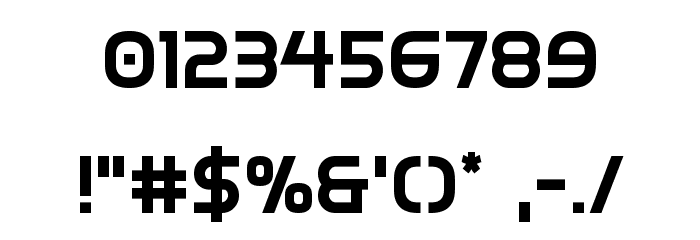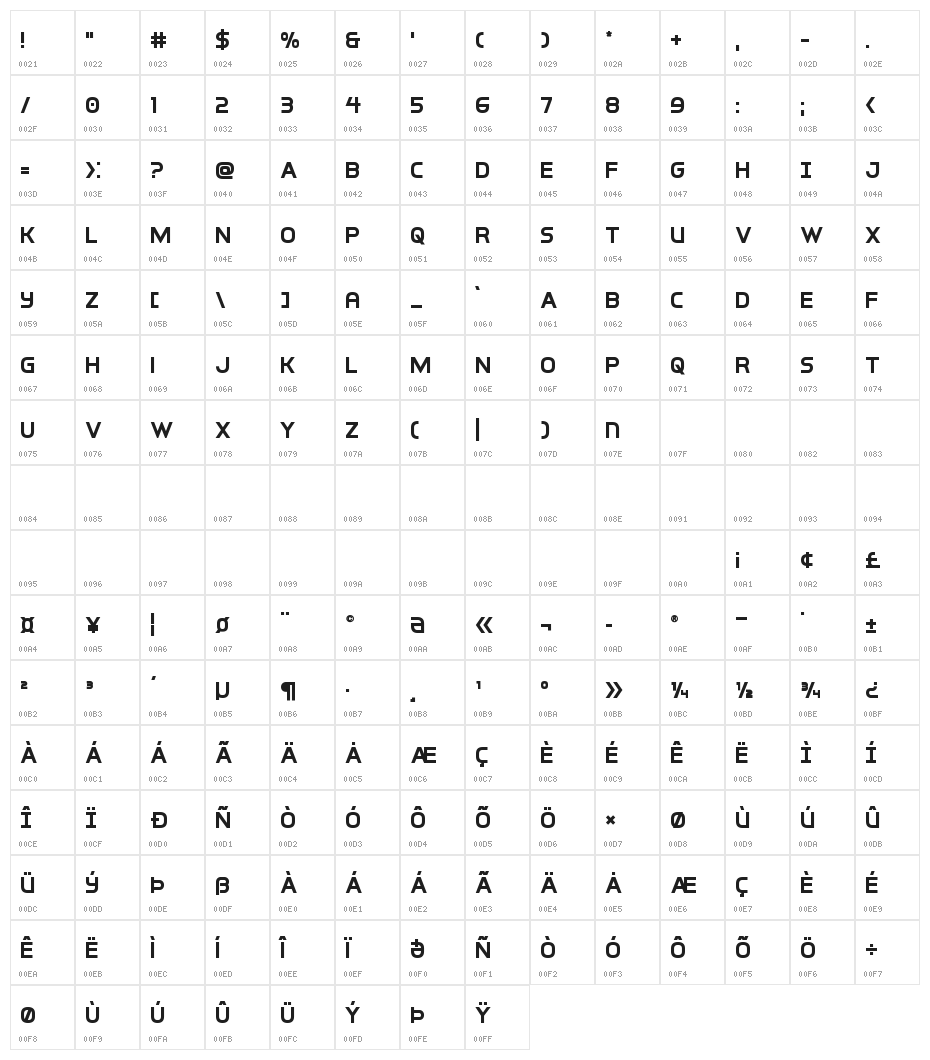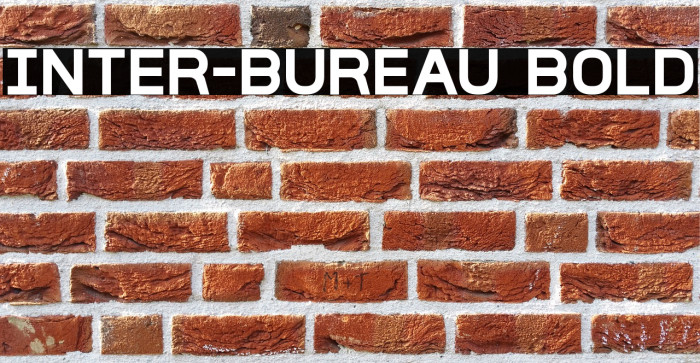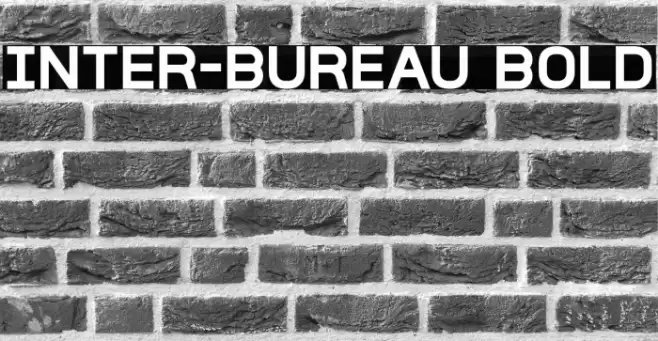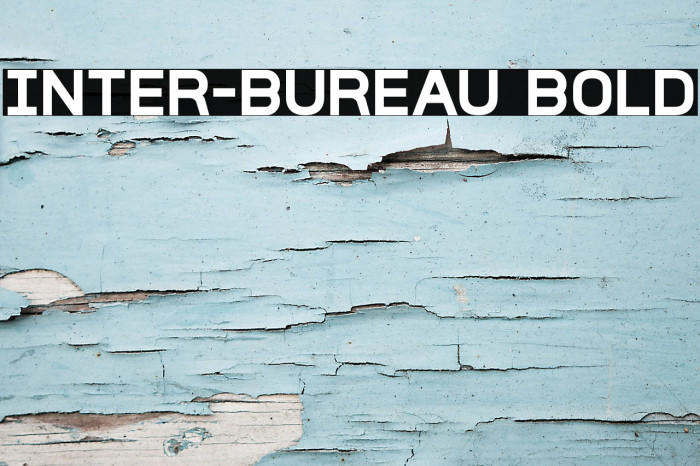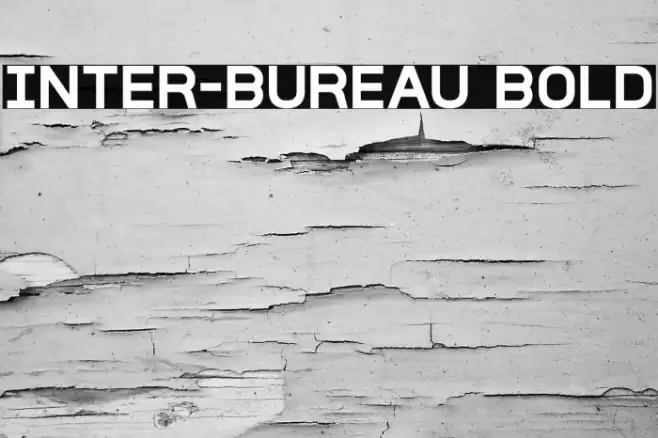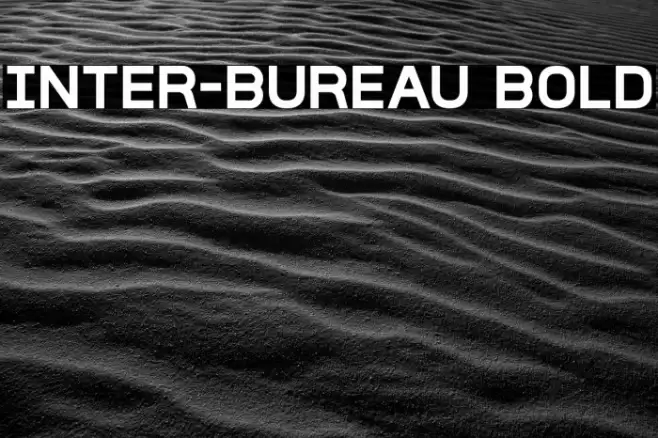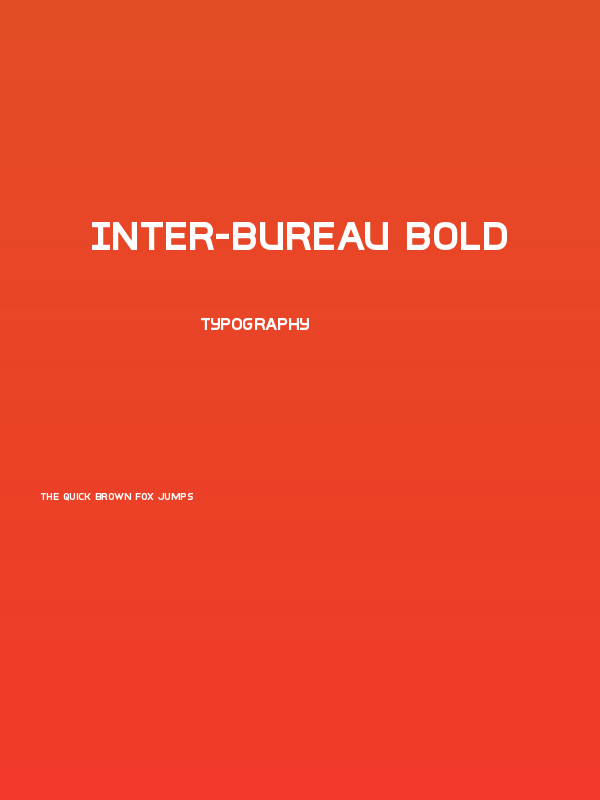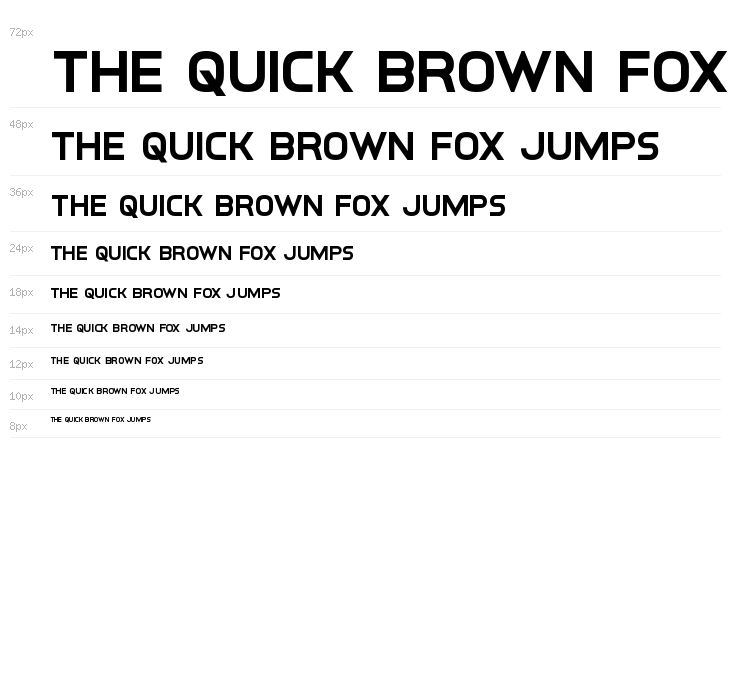
Inter-Bureau Bold Font
Inter-Bureau Bold Description
This typeface features a bold and modern design with clean, geometric lines. The characters are uniformly structured, exhibiting a strong presence with their thick strokes and minimalistic style. The uppercase letters are consistent in height, providing a sense of balance and stability. The lowercase letters maintain a similar geometric form, ensuring readability and cohesion across different text sizes. Numbers are clear and distinct, matching the overall boldness of the alphabet. Special characters are designed to complement the primary character set, maintaining the font's modern aesthetic. This font is ideal for projects requiring a contemporary and assertive look.
| Use Case | Headlines, Logos, Digital Media |
| Proposed Projects | Ideal for branding, advertising, headlines, and digital media projects requiring a modern and bold aesthetic. |